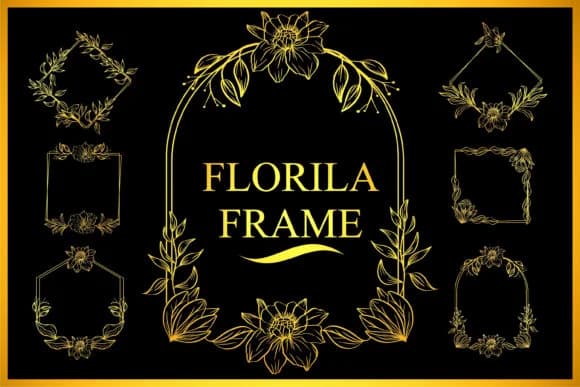
When you're putting together a wedding invitation suite, the floral borders define everything about the visual impact. Florila Frame, designed by edywiyonopp, is a dingbats font built from ornamental flower frames and botanical flourishes. The shapes have that organic, hand-drawn appeal without requiring you to source custom illustrations or spend hours drawing complementary elements yourself.
This works especially well for Valentine's day cards, florist branding projects, stationery design suites, and luxury product packaging where those decorative touches carry real weight in the overall design. Each floral frame can stand alone as an accent or stack together to build custom borders, so you're not locked into a single layout direction. The ornamental elements hold their detail beautifully whether you're using them small as borders or large as statement pieces across a full page. Being a pure dingbats collection means you sidestep the typical typography quirks like baseline misalignment or awkward letter spacing that can undermine a delicate design.
Florila Frame Font is a versatile dingbats font that works for both headings and body text. Pair it with a contrasting sans-serif or serif font to add visual interest and a clear distinction between titles and body copy.